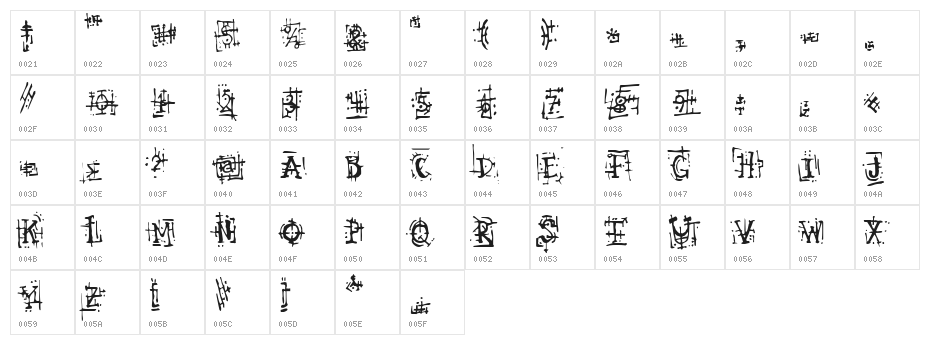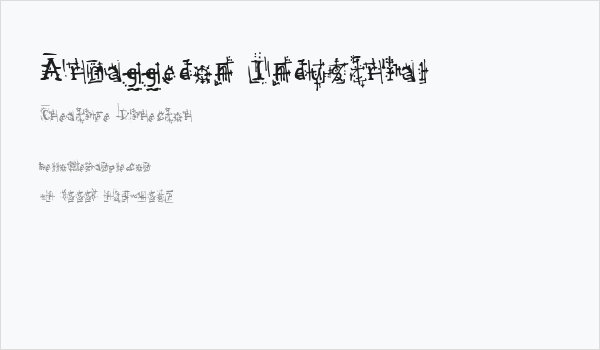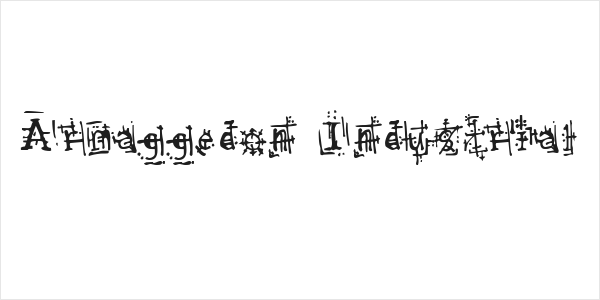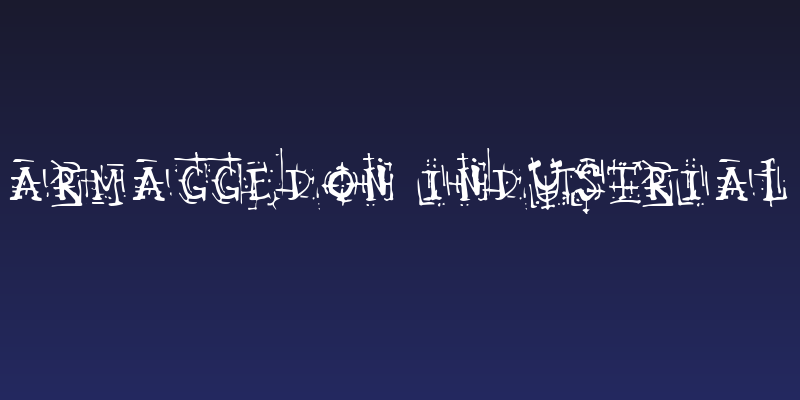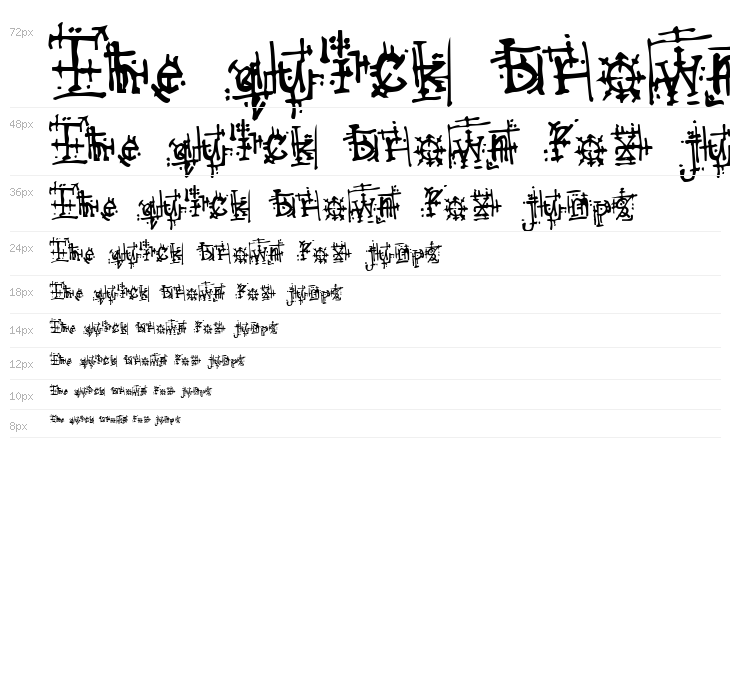
Armaggedon Industrial Font
Armaggedon Industrial Description
This font features a highly distressed and chaotic design, reminiscent of industrial and post-apocalyptic themes. The characters are heavily stylized with jagged edges, irregular shapes, and a grungy texture that suggests decay and destruction. The uppercase and lowercase letters maintain a consistent level of distortion, creating a cohesive yet unpredictable appearance. Numbers and special characters follow the same aesthetic, adding to the overall sense of disorder. This font is ideal for projects that require a bold, edgy look, such as album covers, movie posters, or video game graphics.
| Overall Style | Industrial, Grunge |
| Use Case | Logos, Headlines |
| Proposed Projects | Album covers, movie posters, video game graphics, edgy branding. |